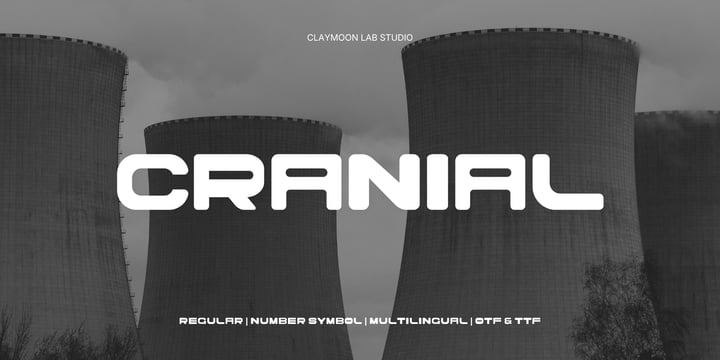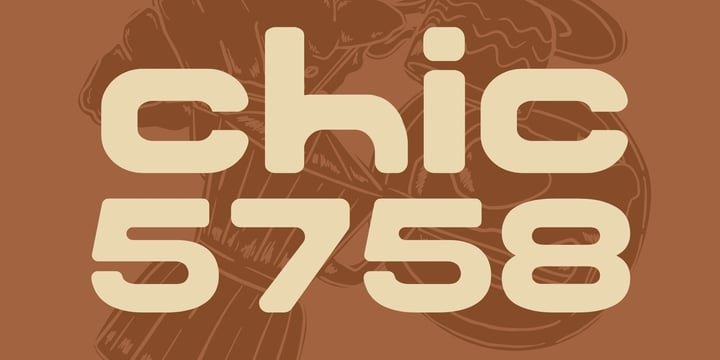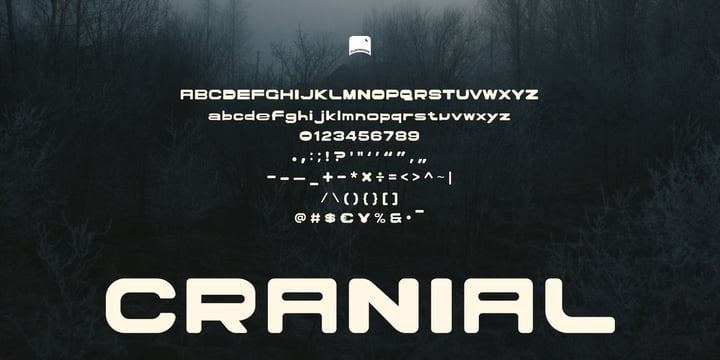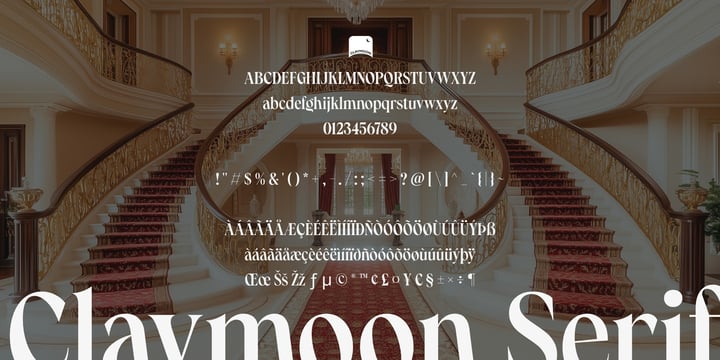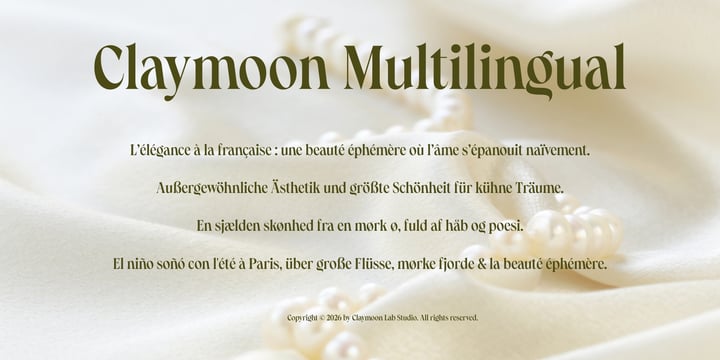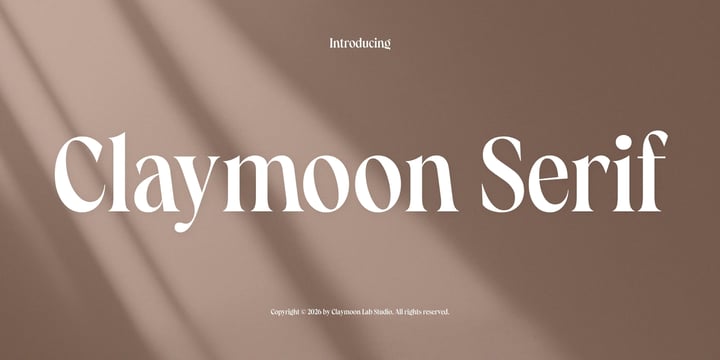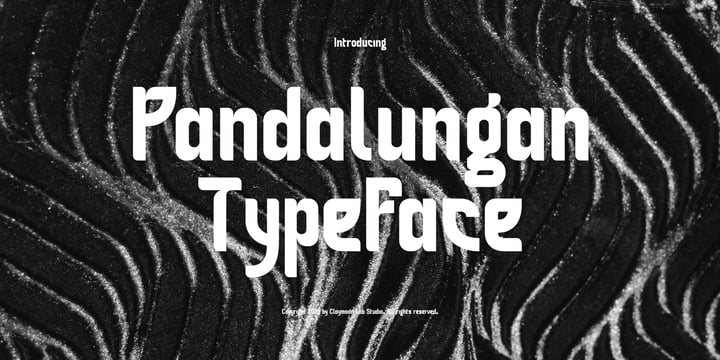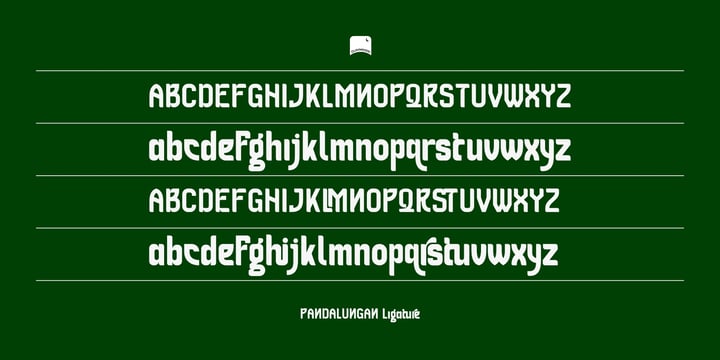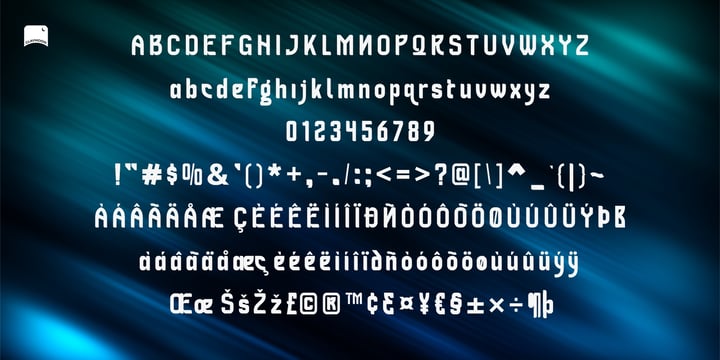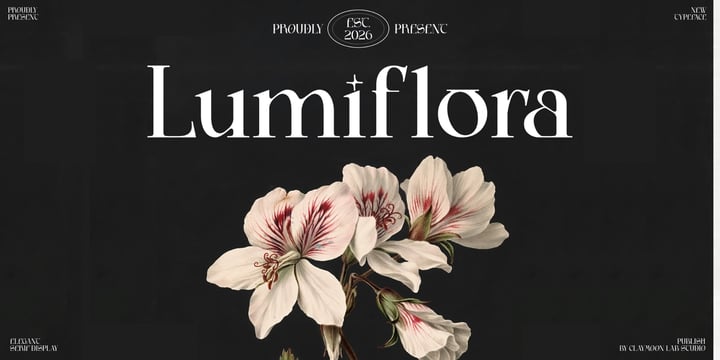
Firman Maulana Ihsan
Firman Maulana Ihsan is an Indonesian type designer and digital artist with a strong focus on creating high-impact display typography. Combining an eye for minimalist composition with a passion for bold visual trends, he specializes in developing distinctive typefaces that look real, structural, and versatile across multiple design contexts. His creative journey is deeply influenced by a mix of clean modernism, modern pixel art principles, and retro design subcultures. In his workflow, Firman bridges technical precision with stylistic flair to design font projects that stand out in creative marketplaces. He strives to give fellow graphic designers and branding agencies access to professional, expressive typography tools that instantly elevate commercial projects, book titles, packaging designs, and digital content.